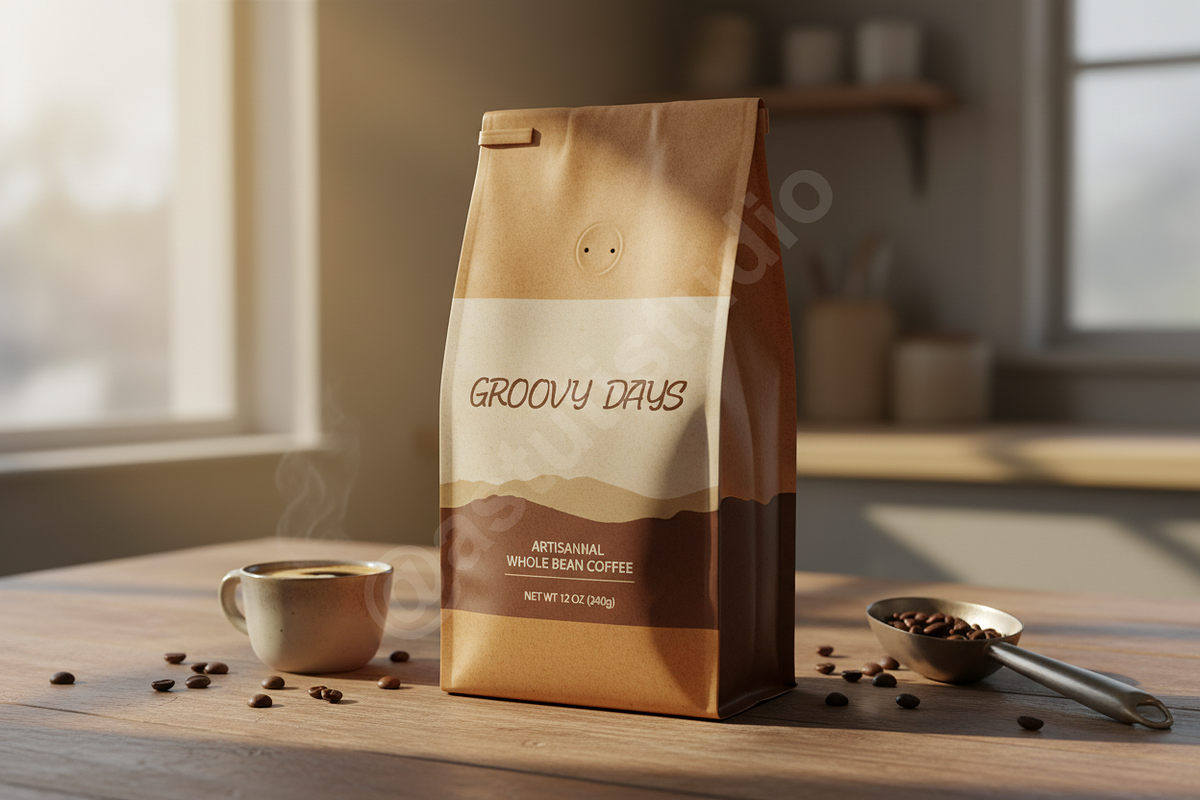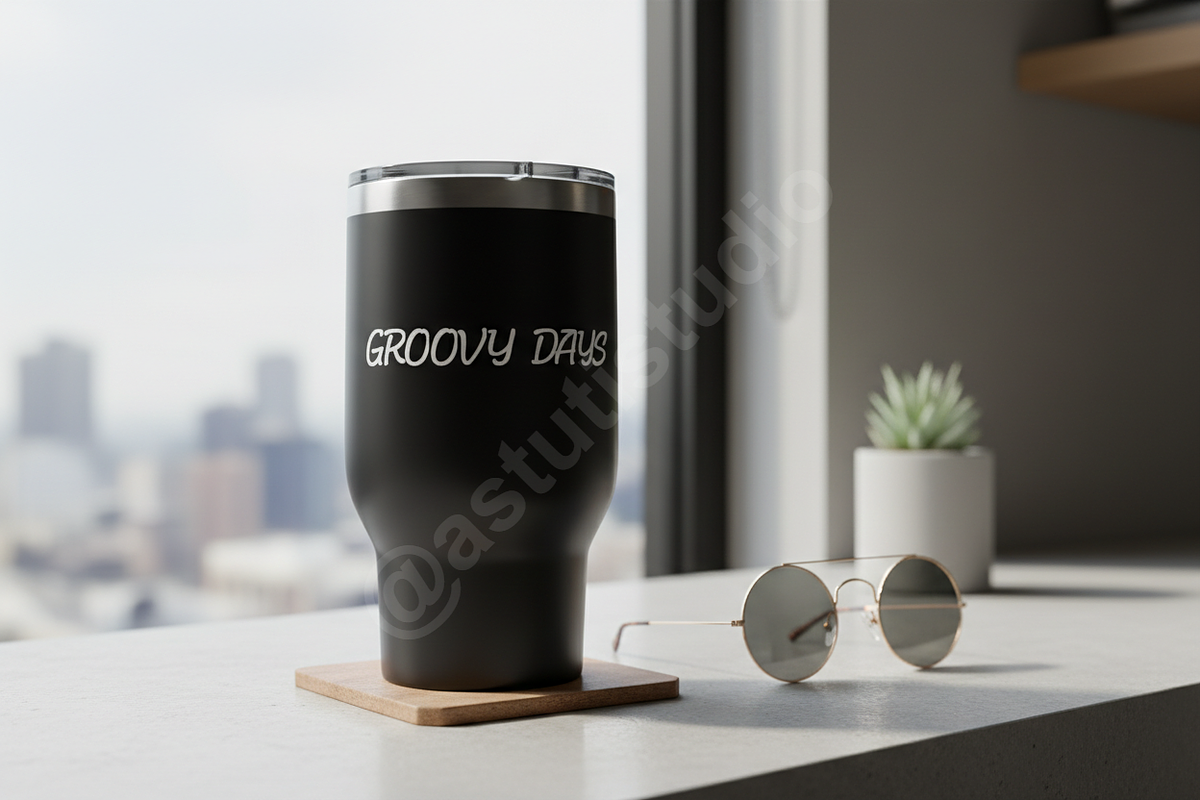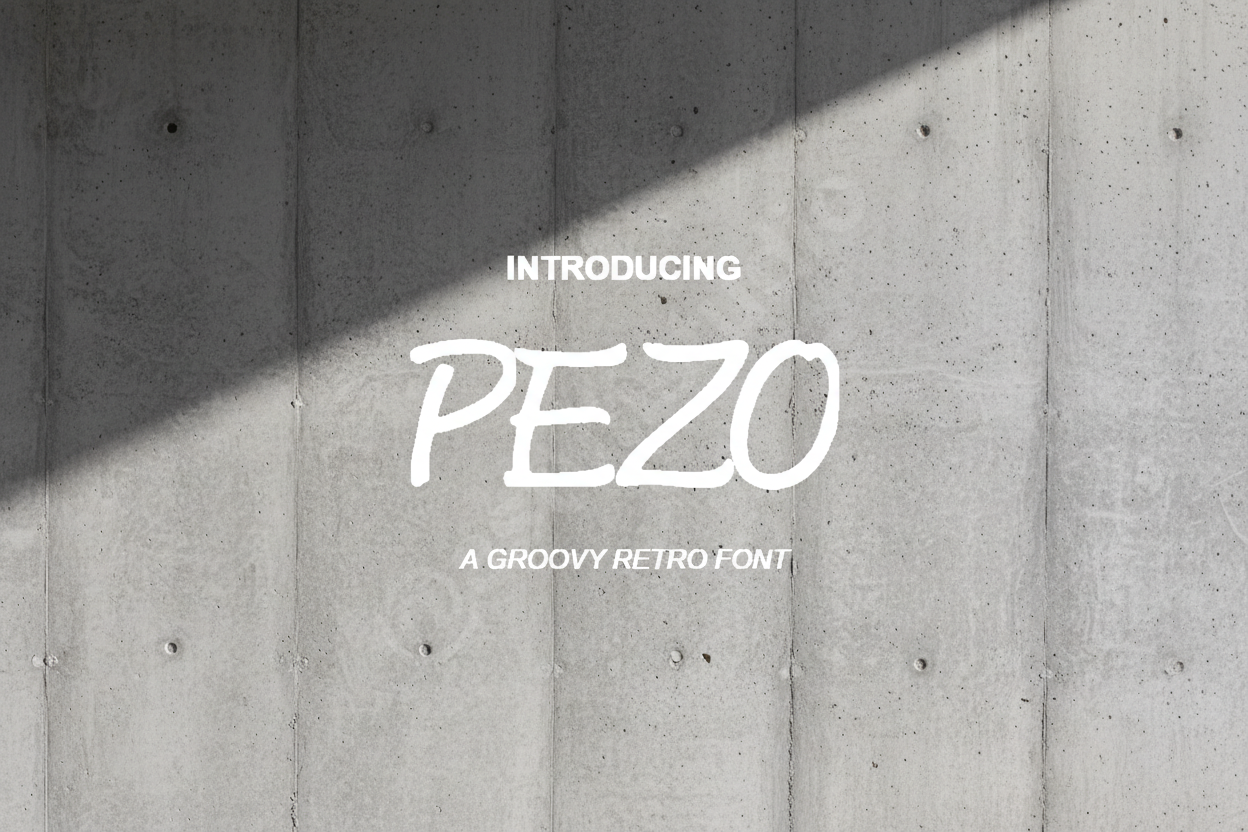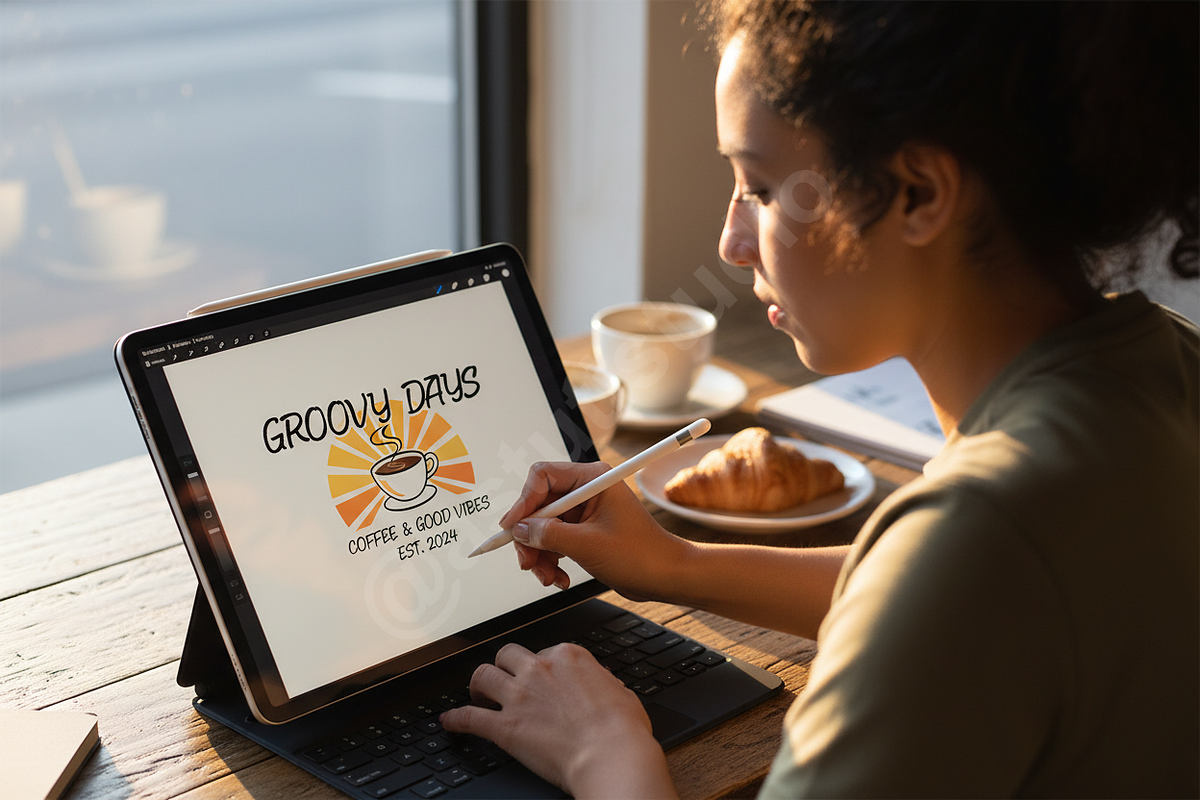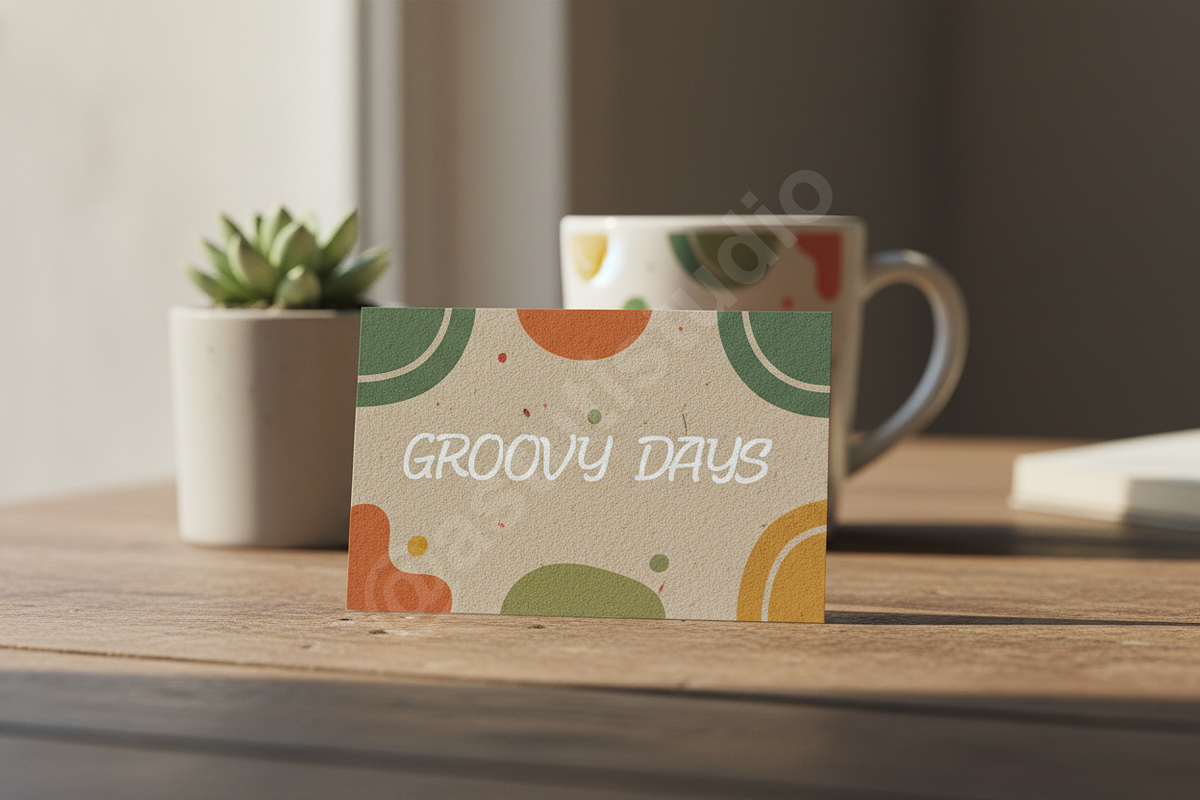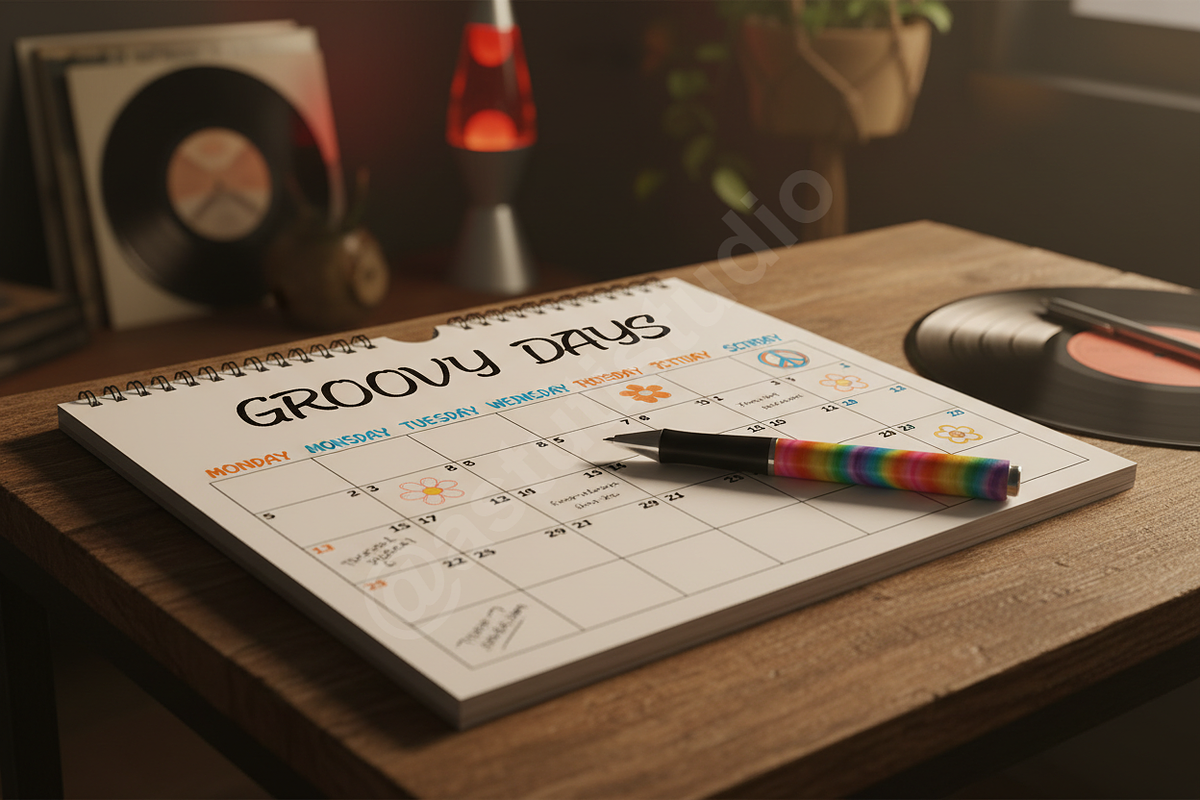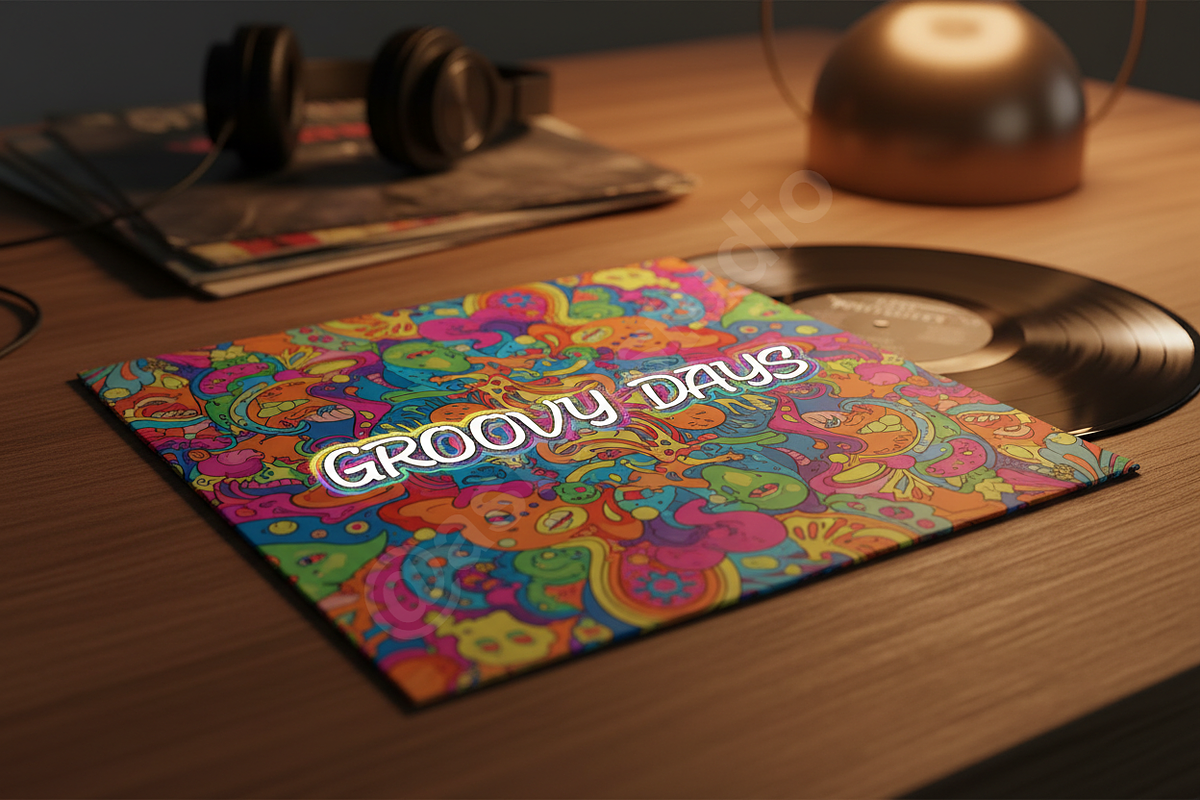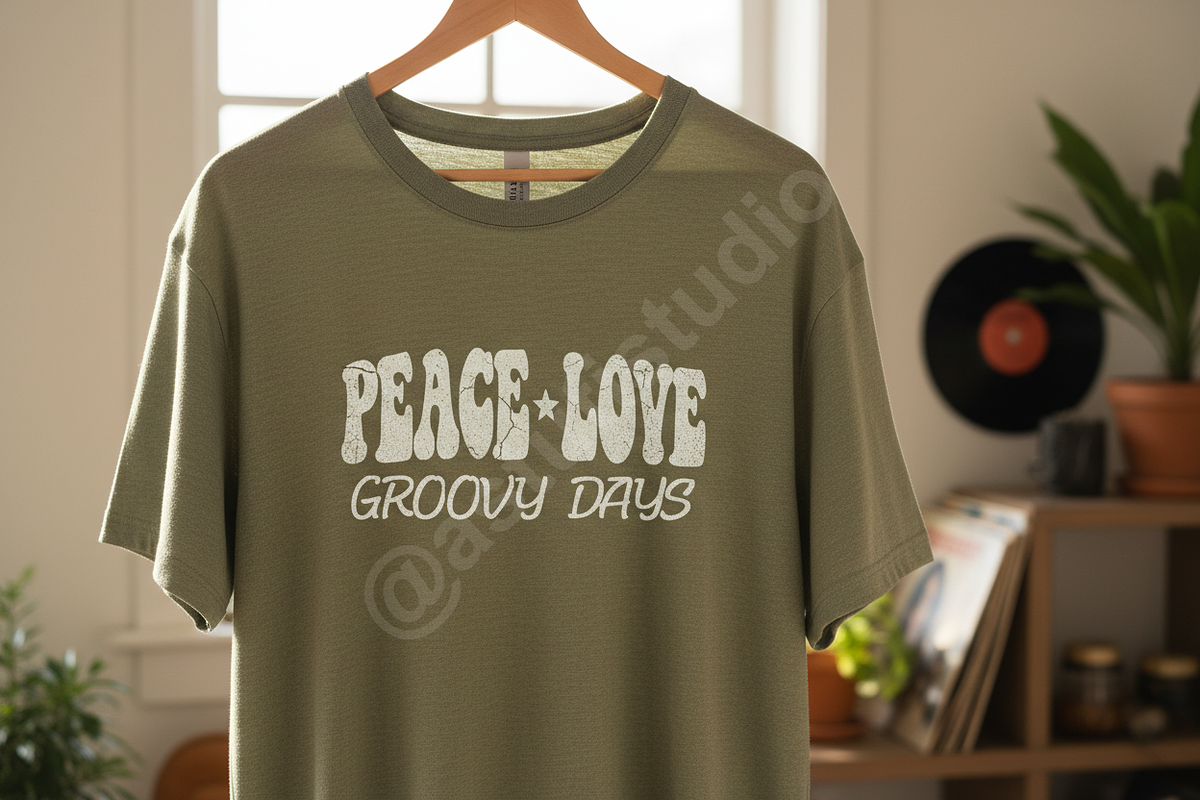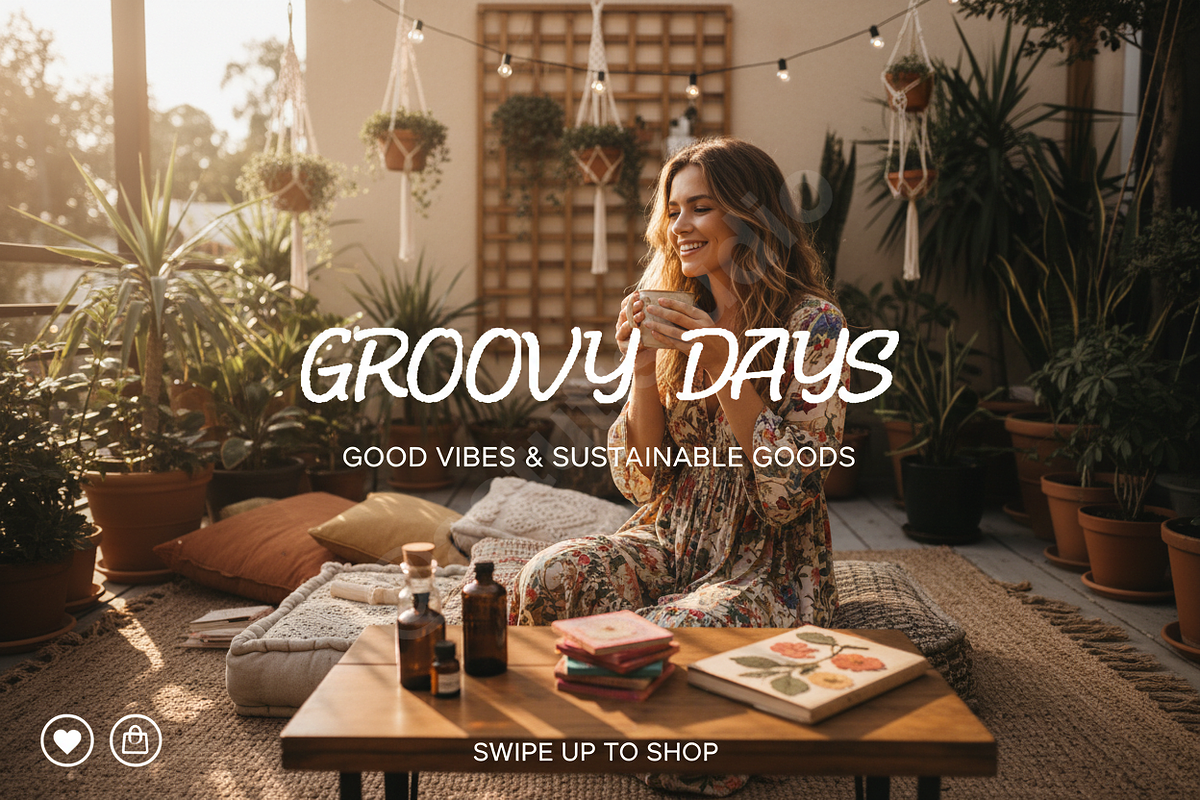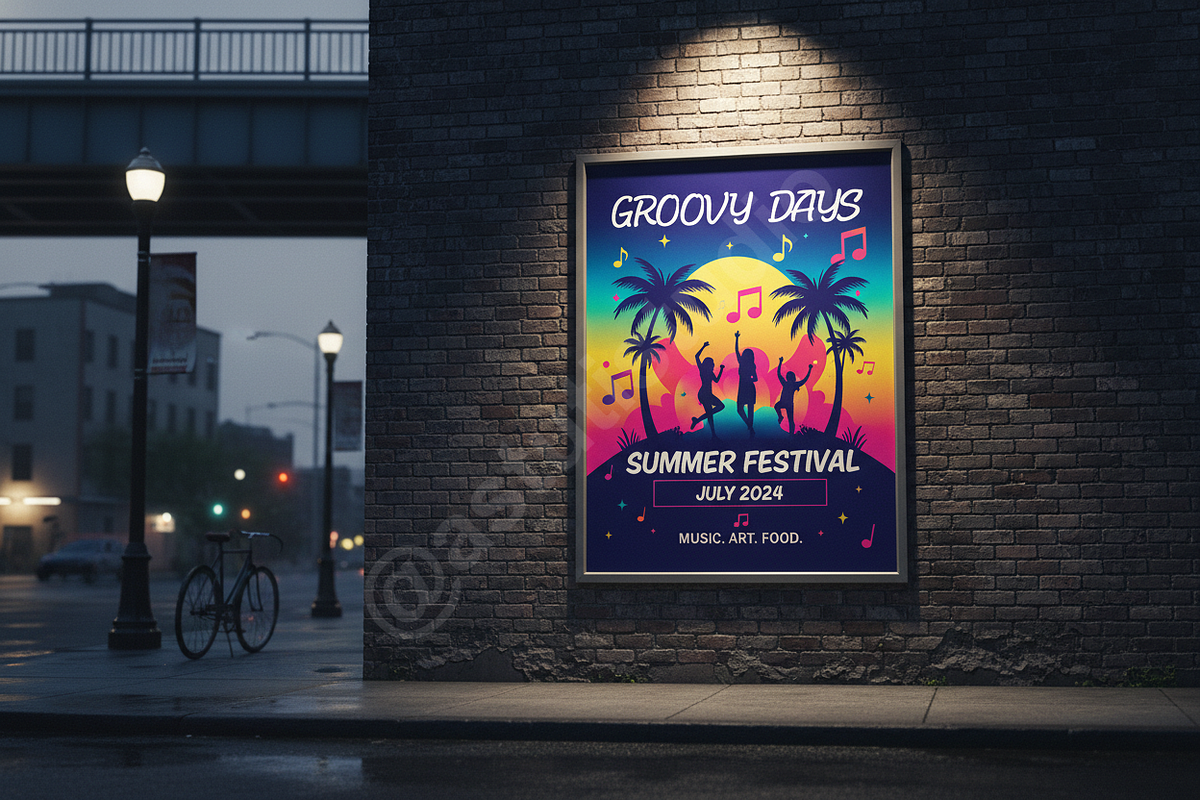
Pezo - Elegant Modern Serif Typeface
Introduction Pezo is a sophisticated serif typeface meticulously crafted for high-end visual identities. Designed by a premium studio, it strikes a perfect balance between modern minimalism and timeless classicism. Its refined curves and sharp terminals make it an ideal choice for luxury branding, editorial design, and elevated social media content.
- Clean and high-contrast letterforms
- Unique stylistic ligatures and alternates
- Extensive multilingual support
- Optimized for both display and body text
- Professional kerning and spacing
- Full character set including numbers and punctuation
- Stylistic alternates for custom typography
- Standard and discretionary ligatures